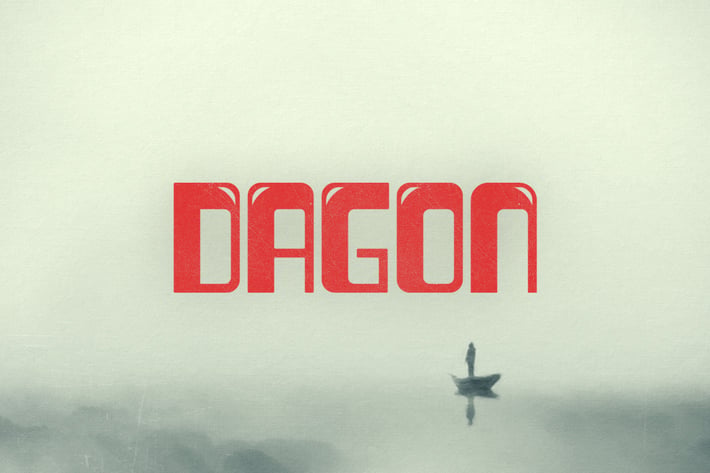
Dagon Typeface
Dagon is a display font family in 3 different styles. The bubbly version has a fun, groovy style while the regular and diagonal versions have a retru-futuristic feel to them.
It includes uppercase English letters, numbers and very basic punctuation.